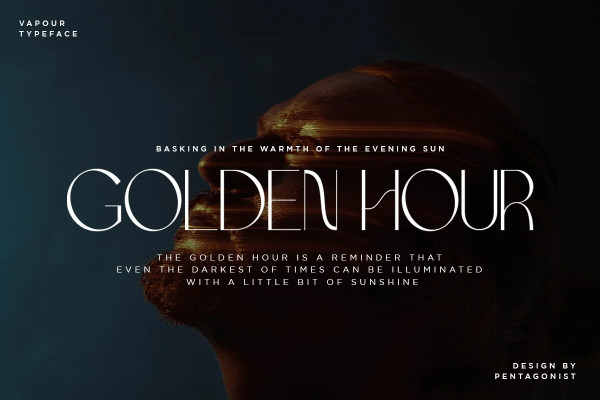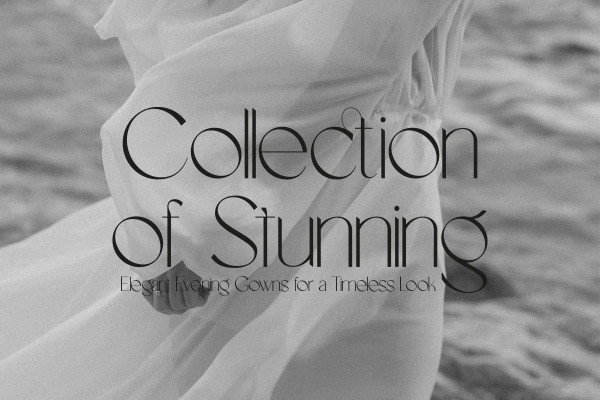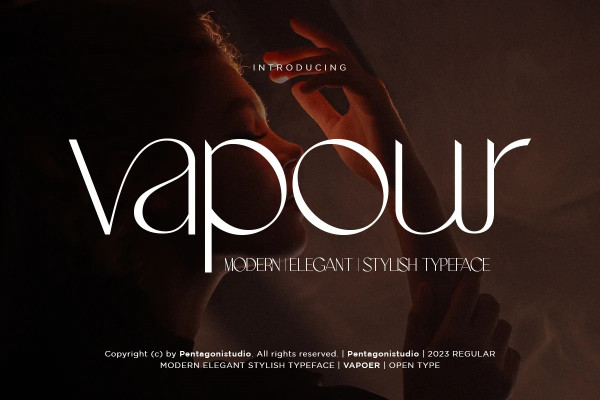
VAPOUR TYPEFACE
Vapour Typeface Is An Elegant/Modern Serif Font with Stylistic Alternates and Ligatures. You can use it as a logo, badge, insignia, packaging, headline, poster, t-shirt/apparel, greeting card, and wedding invitation.